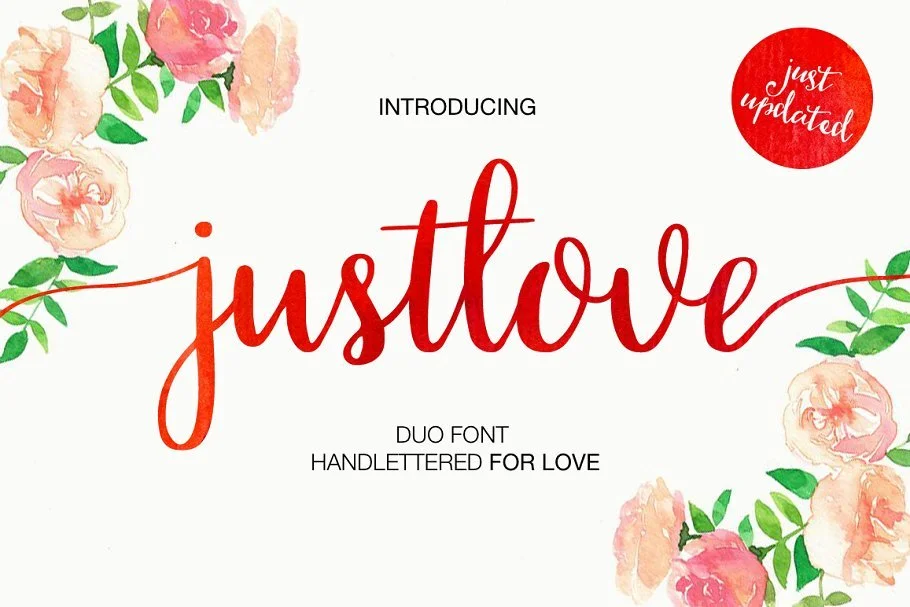
Just Love Script Font is perfect for romantic wedding invitations, Valentine's Day graphics, love-themed greeting cards, engagement announcements, couples photography branding, relationship coaching materials, romantic novel covers, anniversary celebrations, dating app interfaces, and heartfelt designs that celebrate love, connection, and emotional intimacy.
This font is exciting because it beautifully expresses the warmth and tenderness of genuine affection through flowing script letterforms that feel naturally handwritten with love and care. The graceful curves and smooth connections create an intimate atmosphere that makes every message feel more personal, heartfelt, and emotionally authentic, perfect for communicating deep feelings and romantic sentiments.
The Just Love Script Font family typically includes uppercase and lowercase characters, numerals, punctuation marks, ligatures, stylistic alternates, decorative swashes, and heart-themed ornaments that allow designers to create sweetly personalized compositions with romantic charm.
Whether you're designing romantic stationery, creating heartfelt social media content, or developing brand identities for love-centered businesses and services, Just Love Script Font Free Download provides the perfect typographic expression of affection and tenderness. Its warm character and genuine romantic appeal make every project feel more emotionally connected and personally meaningful, ensuring your designs beautifully convey love, intimacy, and heartfelt emotions that touch hearts and celebrate the beautiful connections between people.